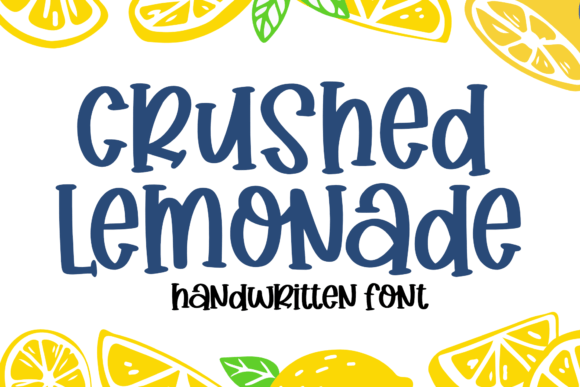
Crushed Lemonade Font: The Cute Handwritten Font for Your Design Projects
Are you looking for a font that can add a touch of charm and playfulness to your design projects? Look no further than the Crushed Lemonade font. This cute handwritten font is bouncy, charming, and perfect for many design projects or crafting ideas. In this article, we’ll take a closer look at the Crushed Lemonade font, its features, and how you can use it to elevate your designs.
What is Crushed Lemonade Font?
Crushed Lemonade font is a handwritten font that is designed to look like it’s been written with a brush or a marker. It’s a casual, laid-back font that’s perfect for designs that require a personal touch. The font is made up of bold, rounded letters that are full of character and charm.
Benefits of Using Crushed Lemonade Font
There are many benefits to using the Crushed Lemonade font in your design projects. Here are a few:
- Unique and eye-catching: The Crushed Lemonade font is a one-of-a-kind font that’s sure to grab attention. Its bold, rounded letters make it stand out from more traditional fonts.
- Perfect for creative projects: This font is perfect for creative projects, such as crafting, scrapbooking, and DIY tutorials.
- Easy to read: Despite its bold and playful design, the Crushed Lemonade font is easy to read, making it perfect for use in titles, headings, and body text.
- Versatile: This font can be used for a wide range of design projects, from posters and flyers to social media graphics and blog posts.
How to Use Crushed Lemonade Font
The Crushed Lemonade font can be used in a variety of design projects, including:
- Posters and flyers: Use the Crushed Lemonade font to create eye-catching posters and flyers for events, promotions, and products.
- Social media graphics: Add a personal touch to your social media graphics, such as Facebook posts, Twitter headers, and Instagram stories.
- Blog posts: Use the Crushed Lemonade font to add a touch of personality to your blog posts, including titles, headings, and body text.
- Crafting and scrapbooking: This font is perfect for crafting and scrapbooking projects, such as card making, journaling, and photo albums.
Tips for Using Crushed Lemonade Font
Here are a few tips for using the Crushed Lemonade font:
- Use it sparingly: While the Crushed Lemonade font is cute and playful, it can be overwhelming if used too much. Use it sparingly to add a touch of personality to your designs.
- Pair it with other fonts: The Crushed Lemonade font pairs well with other fonts, such as sans-serif fonts and script fonts. Experiment with different font combinations to find the perfect look for your design.
- Adjust the size and color: Adjust the size and color of the Crushed Lemonade font to suit your design needs. A larger size can be used for titles and headings, while a smaller size can be used for body text.
Alternatives to Crushed Lemonade Font
In conclusion, the Crushed Lemonade font is a cute and playful handwritten font that’s perfect for many design projects or crafting ideas. Its bold, rounded letters make it stand out from more traditional fonts, and its ease of use makes it a great choice for designers of all levels. Whether you’re looking to add a touch of personality to your designs or create a unique and eye-catching font, Crushed Lemonade is a great choice.